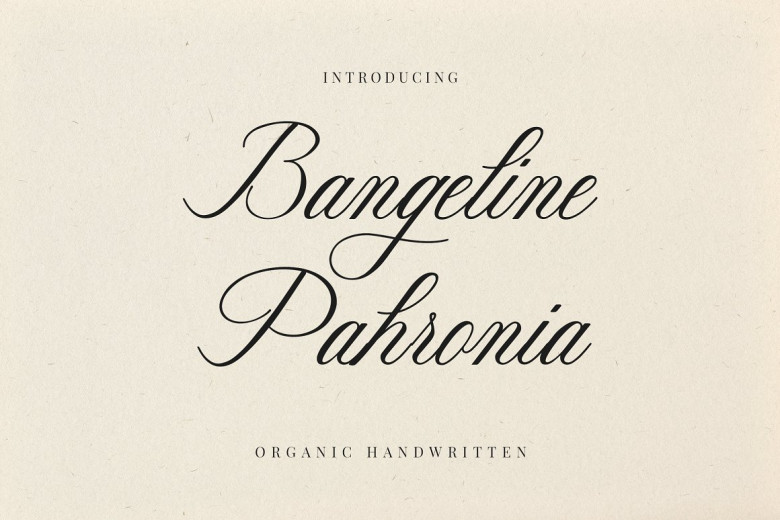
Bangeline Pahronia Font
Bangeline Pahronia is a organic handwritten calligraphy font that feels beautiful classy, elegant, and modern. This font is ideally suited for a wide variety of projects, such as signature, stationery, logo, wedding, typography quotes, magazine or book covers, website headers, clothing, branding, packaging design and more.
Bangeline Pahronia Calligraphy Font